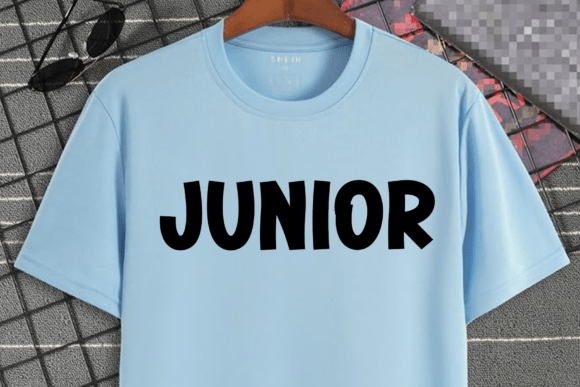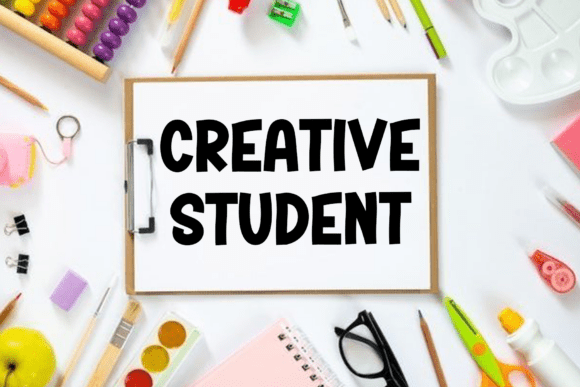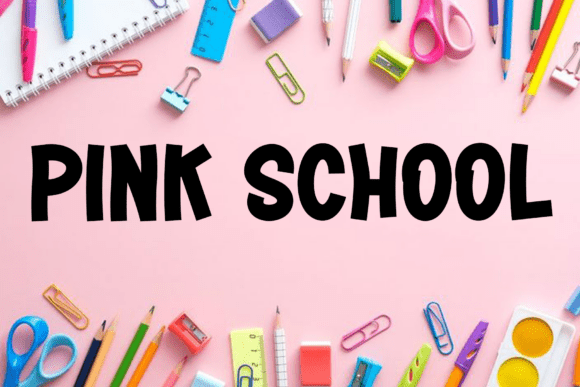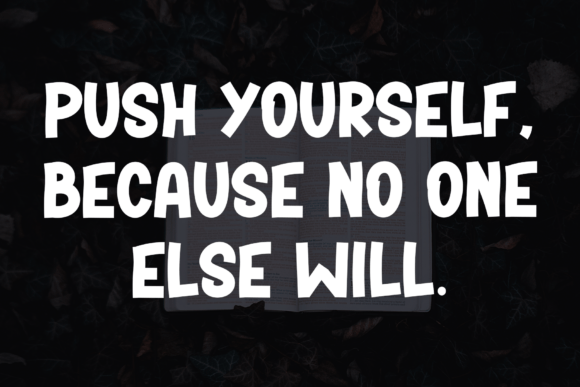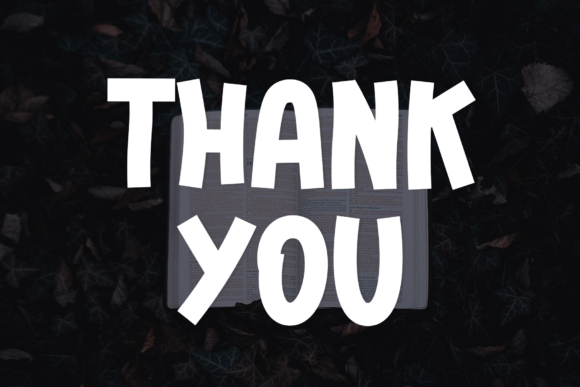
Have you ever found yourself staring at a blank page, desperate for inspiration to strike? You know, that moment when the words just won’t come, and all you can think about is the perfect font to break the silence? For designers like us, this is a common creative conundrum.
Enter the Angela Notes Font, a delightful display font that’s sure to add a dash of personality to your next project. Designed to be playful and quirky, this font is perfect for anyone looking to inject some fun into their designs. Whether you’re working on a branding project, a social media campaign, or simply a personal creative outlet, the Angela Notes Font is a valuable addition to your toolkit.
Angela Notes Font Key Features
- Font Family: Angela Notes is a handwritten font family designed to resemble handwritten notes. It is available in multiple styles, including Regular, Italic, Bold, and Bold Italic.
- Unique Characteristics: Angela Notes features a unique, handwritten feel with subtle imperfections and variations in line width, giving it a natural and organic look.
- Language Support: Angela Notes supports a wide range of languages, including Latin, Greek, and Cyrillic scripts, making it a versatile choice for designers and typographers.
- Pairing Options: Angela Notes is designed to be paired with a range of font styles, including sans-serif and serif fonts, to create visually appealing and harmonious typography.
Angela Notes Font Review
I recently had the chance to work with the Angela Notes font, and I must say, it’s a unique addition to any design project. ✨ Here are a few things that really stood out to me:
- Expressive and creative feel: Angela Notes has a certain whimsy to it, which can add a lot of character to your design.
- Good for handwritten or casual text: The font’s imperfections and variations make it well-suited for text that needs to feel more relaxed and approachable.
- Customization options: Angela Notes comes with a range of OpenType features, which can help you tailor the font to your specific design needs.
- May not be suitable for formal or professional text: The font’s playful, handwritten feel may not be the best fit for more formal or professional writing.
- Limited language support: Angela Notes may not be optimized for languages with complex scripts or typography.
Overall, I’d say Angela Notes is a solid choice for designers looking to add a bit of personality to their work. While it may not be the best fit for every project, it’s definitely worth considering for designs that need a touch of whimsy and creativity.
Use Angela Notes Font for titles, headings, and emphasis.
Combine with other fonts for a unique and creative look.